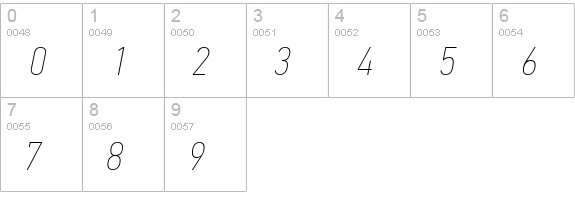
PFDinTextCondPro-XThinItalic is a sleek and stylish font that exudes elegance and sophistication. Its thin and italic design adds a touch of modernity to any project, making it perfect for creating a refined and contemporary look. The delicate strokes and refined curves of this font make it ideal for use in fashion magazines, luxury branding, and high-end design projects. What makes PFDinTextCondPro-XThinItalic even more appealing is that it is available for free download at FontsMarket.com. This means you can easily access this exquisite font without any cost, making it a valuable addition to your font collection. Don't miss out on the opportunity to enhance your designs with this beautiful typeface that combines grace and sophistication effortlessly. Download PFDinTextCondPro-XThinItalic today and elevate your projects to new heights of elegance.